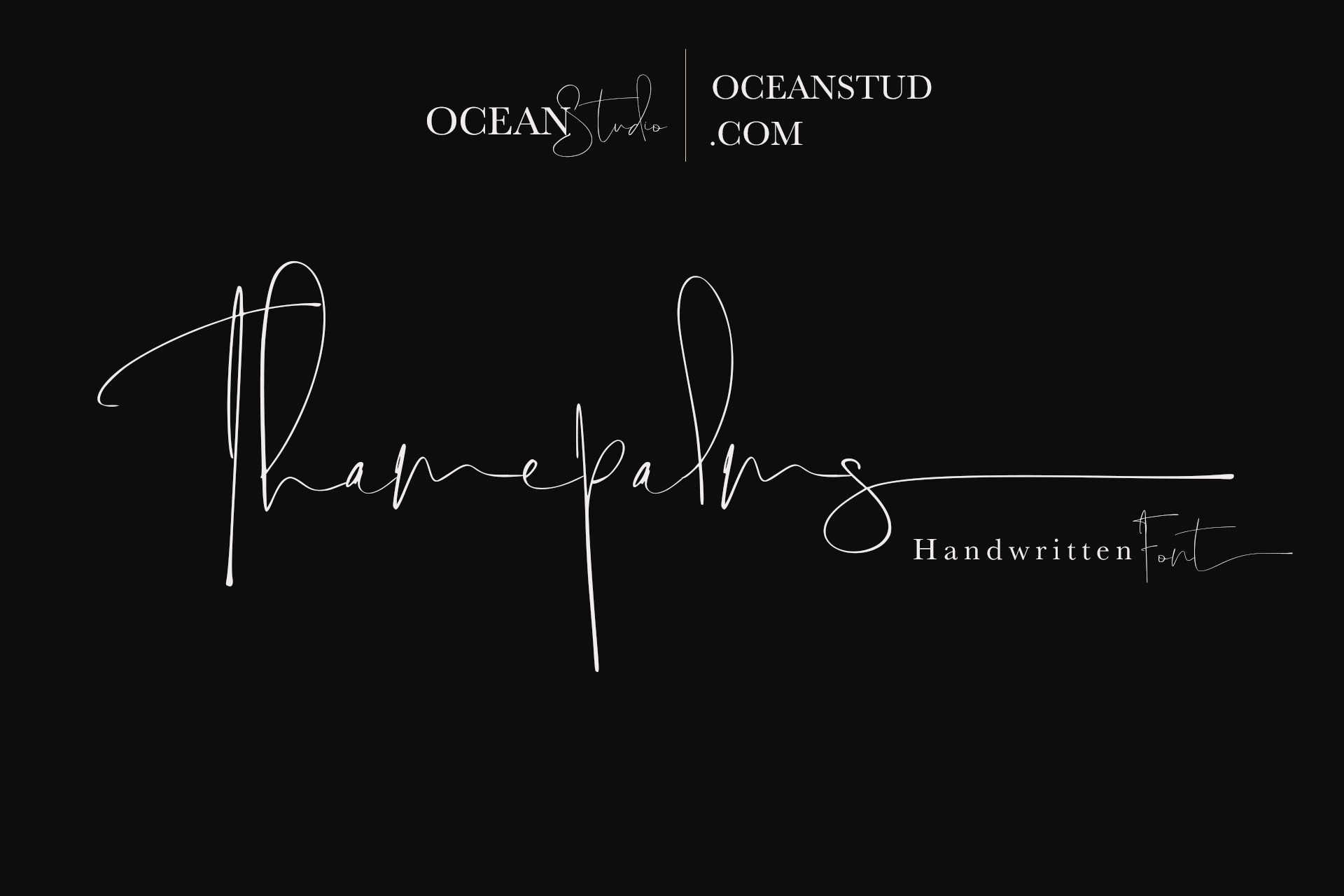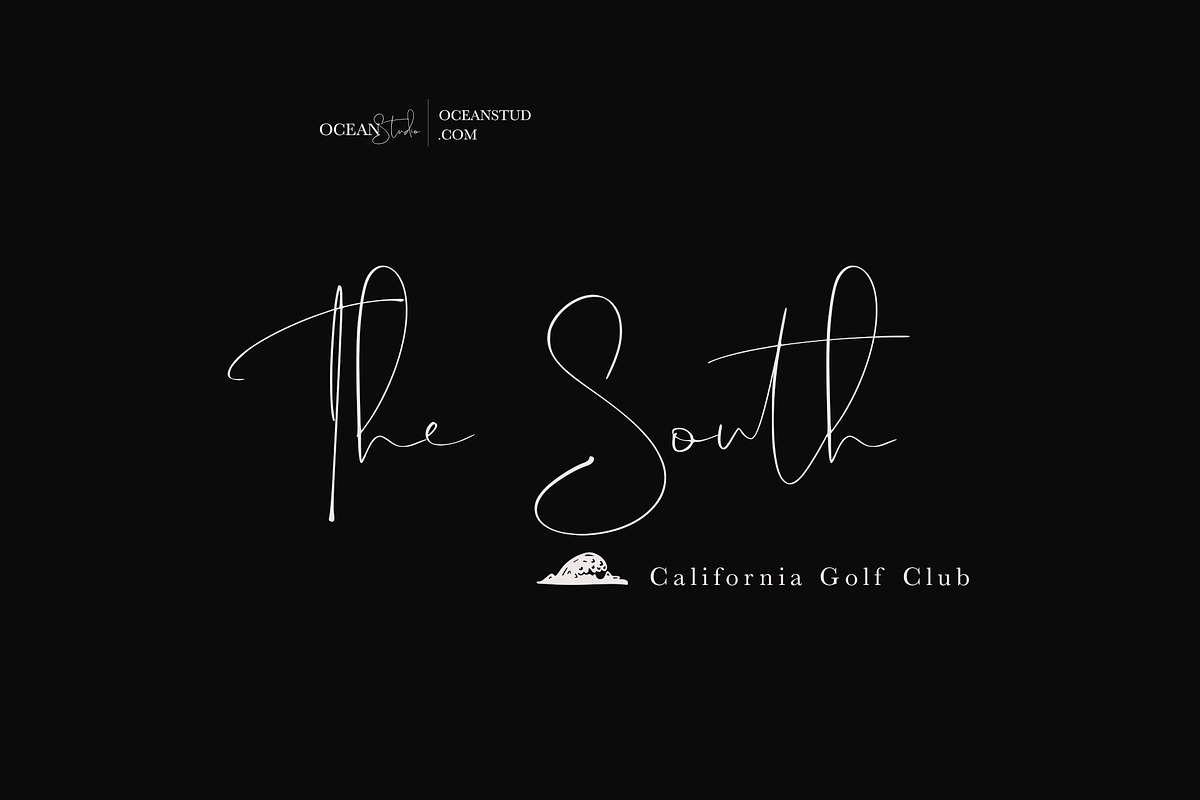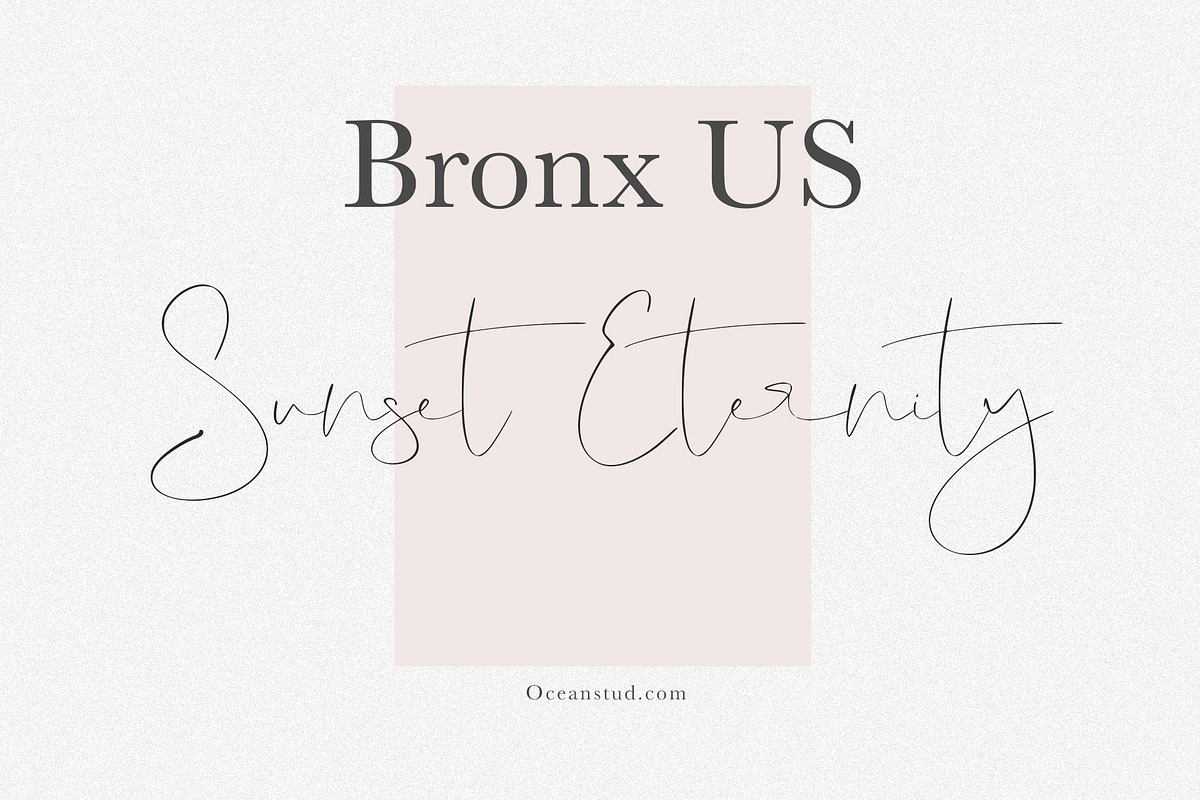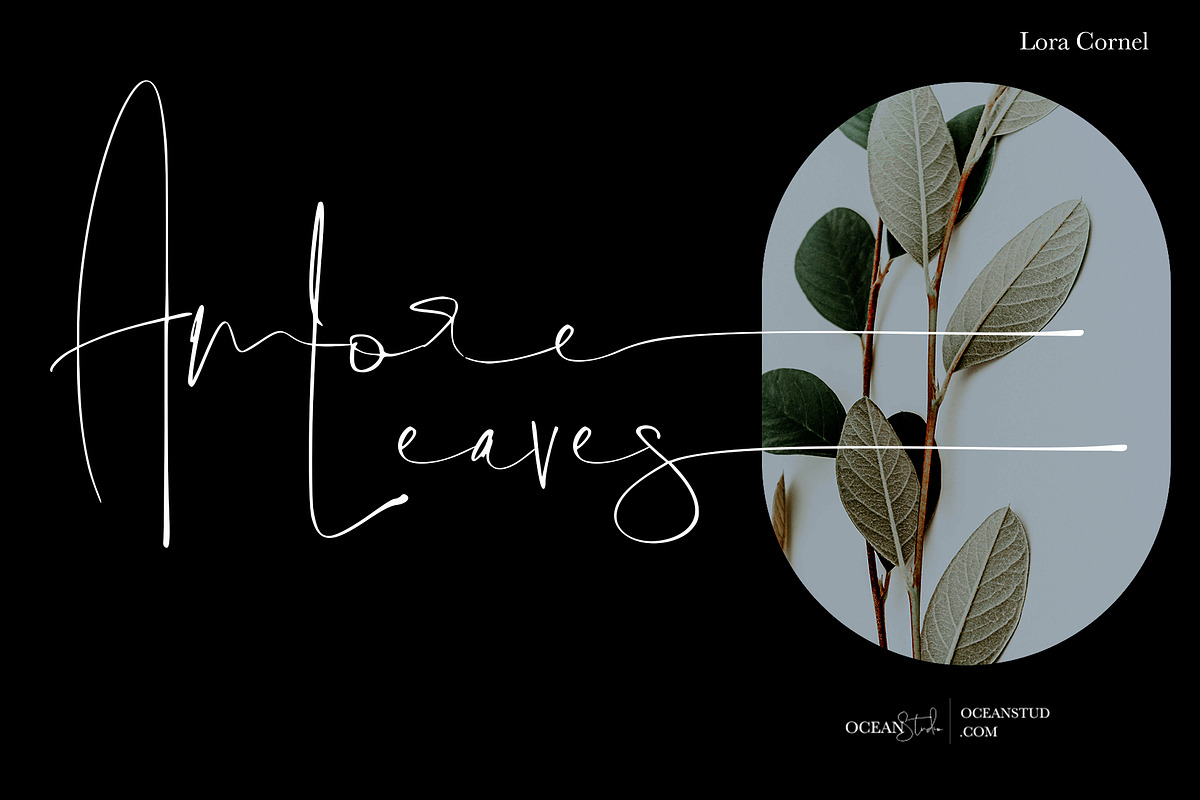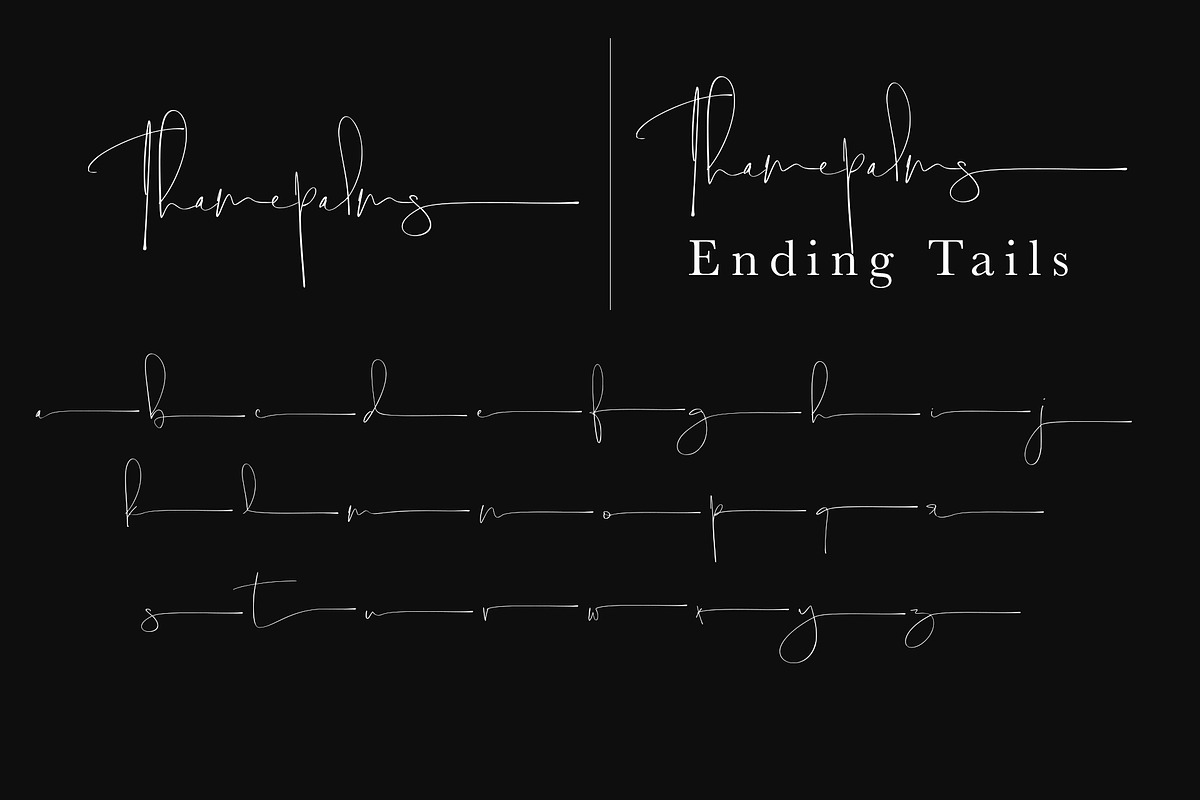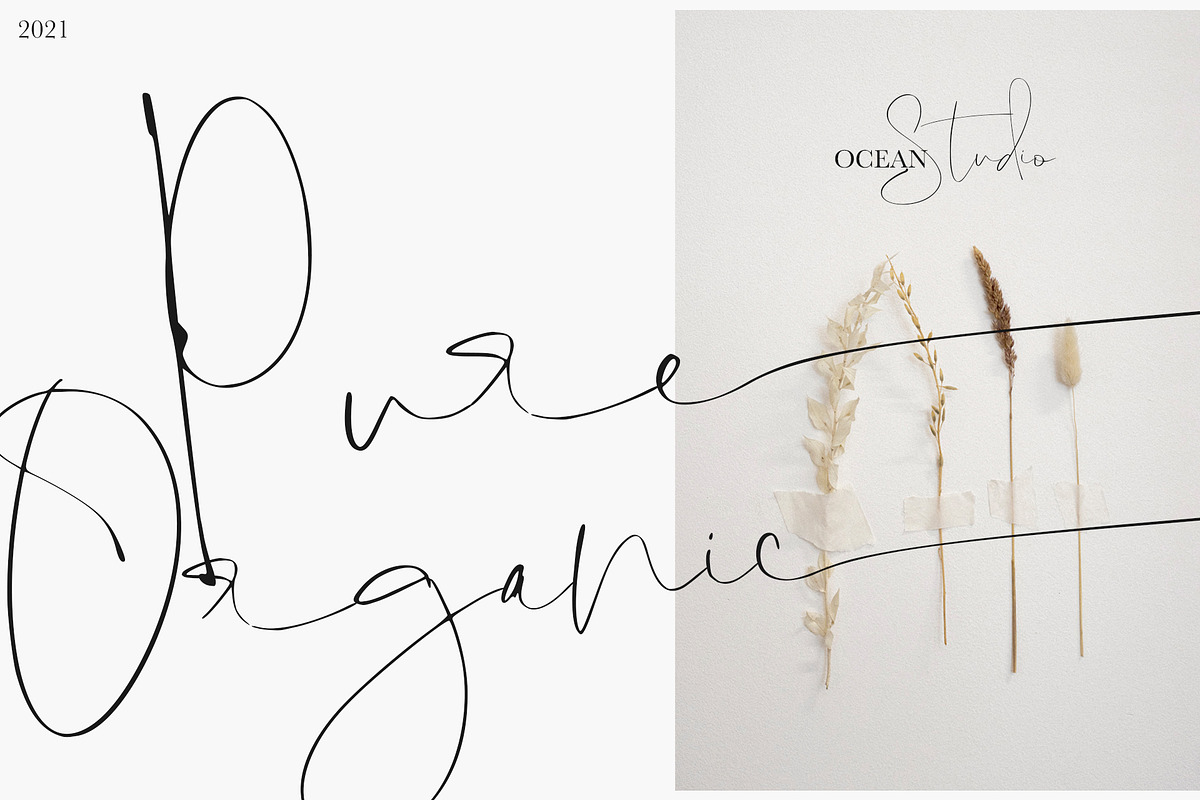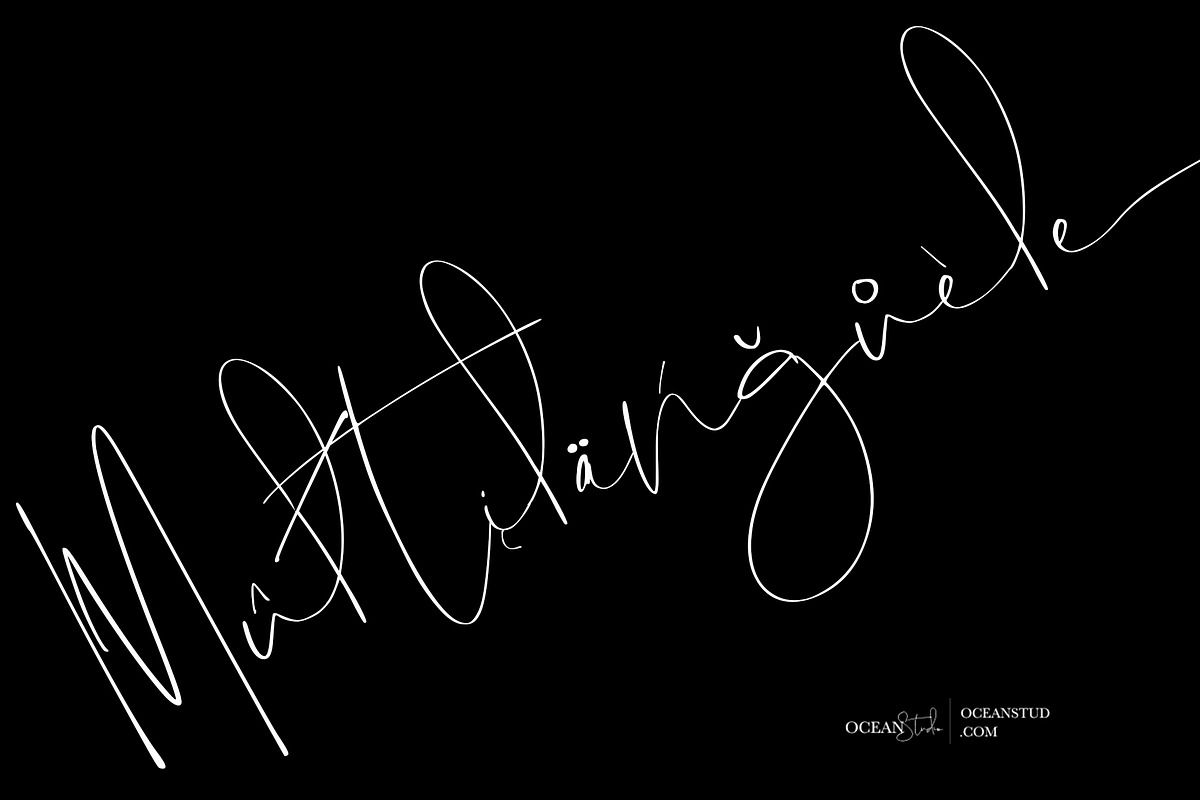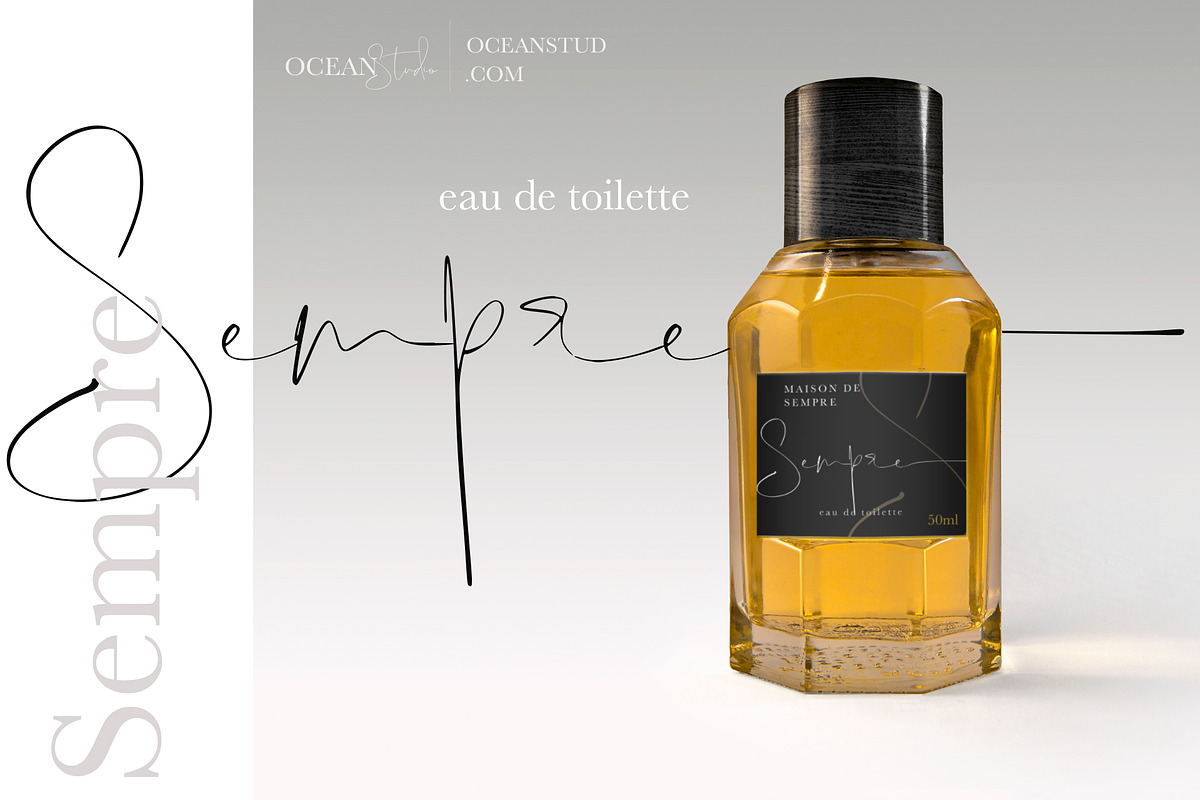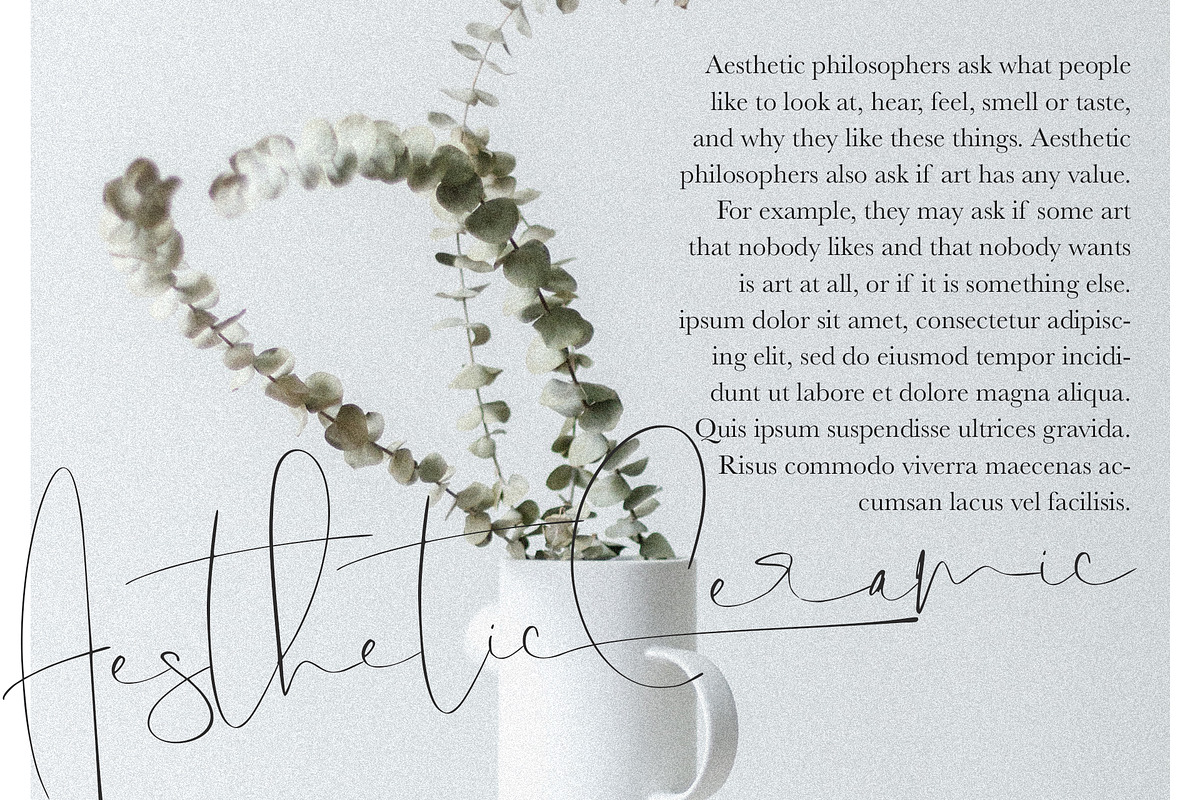
Thamepalms | Handwritten Font
Hello Thamepalms Font is pure hand strokes that are inspired by pure handwriting from natural hands, elegant strokes bring out authentic writing, coupled with letter endings with long lines to enhance your Type